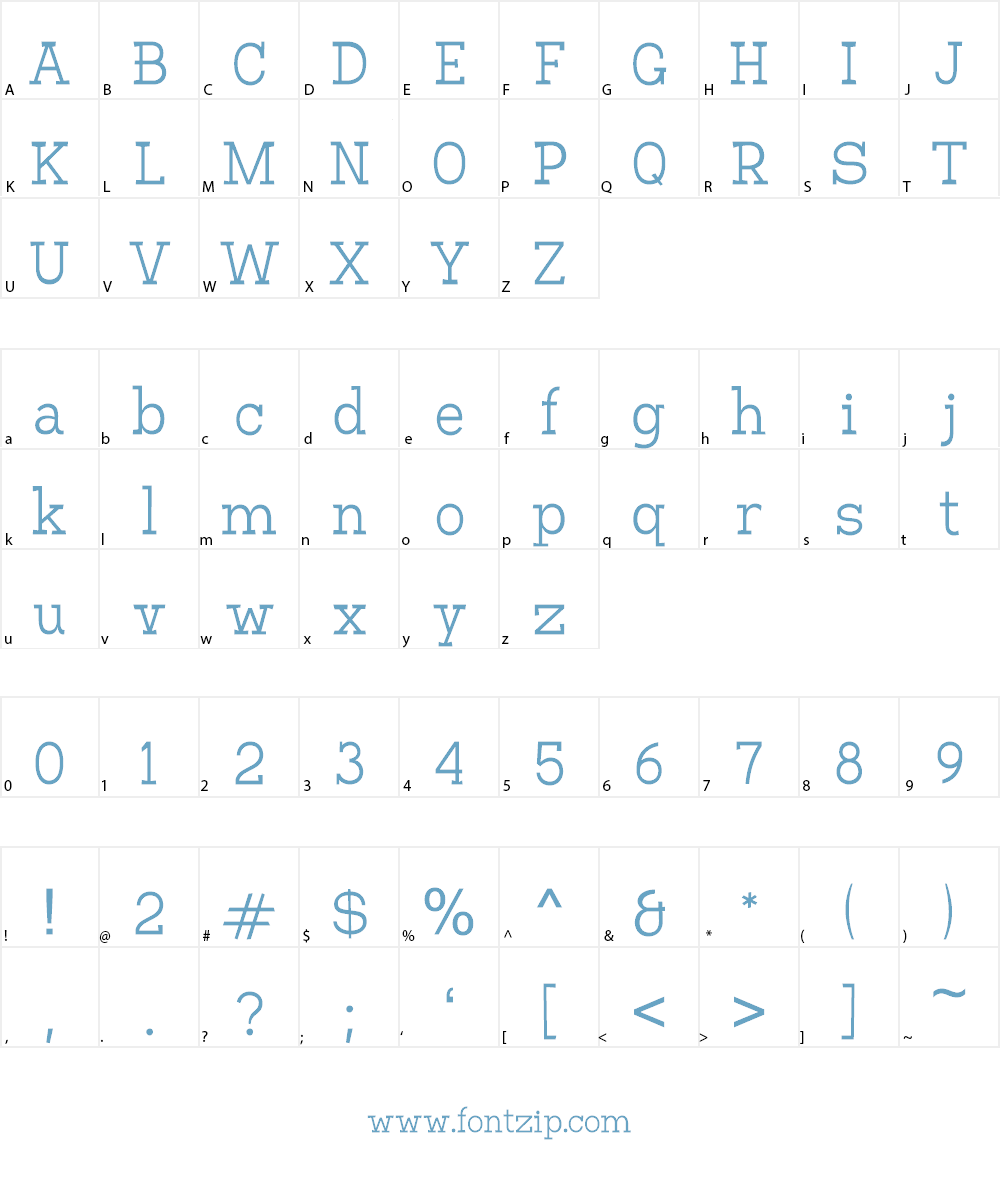
PL Bardamu was a fun experiment that outgrew its platform. It was originally intended for a little brochure, but we kept going on and on, and wound up with this little gem. The basic (free) version includes only basic latin and numerals. The full version that can be purchased separately includes more than 350 glyphs and covers all European languages, various sets of numerals, lots of symbols, additional punctuation and stylistic alternates.